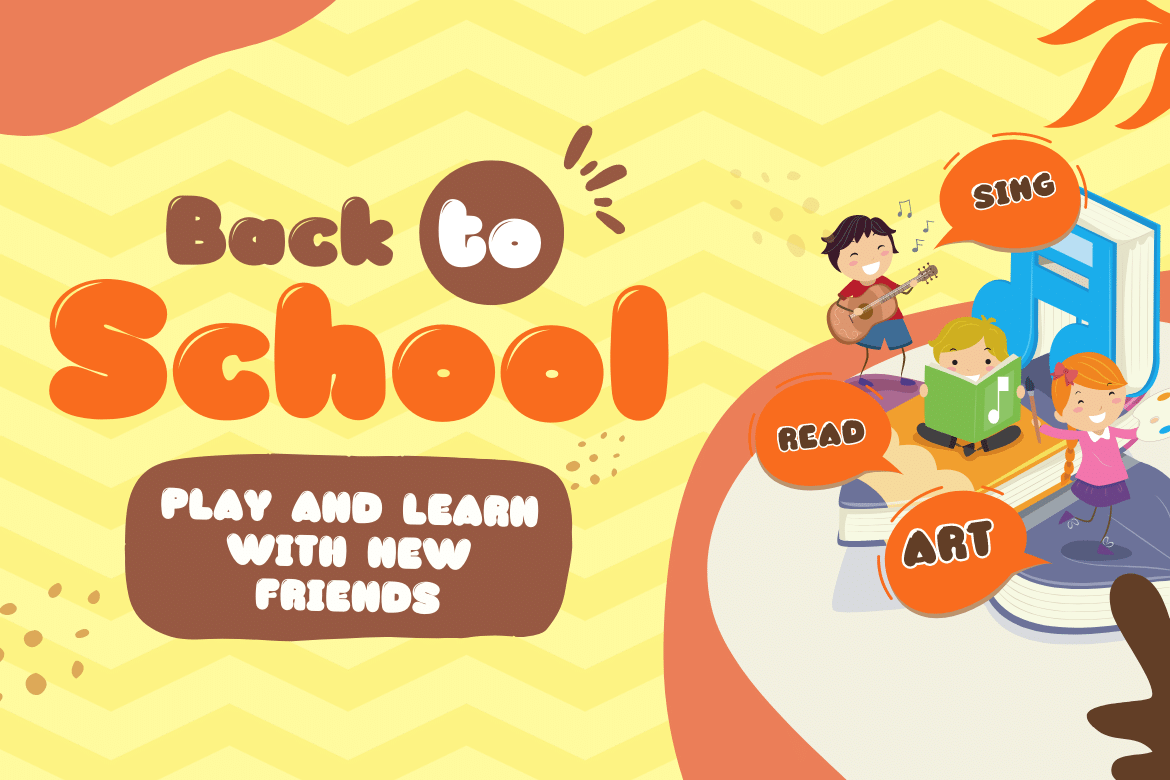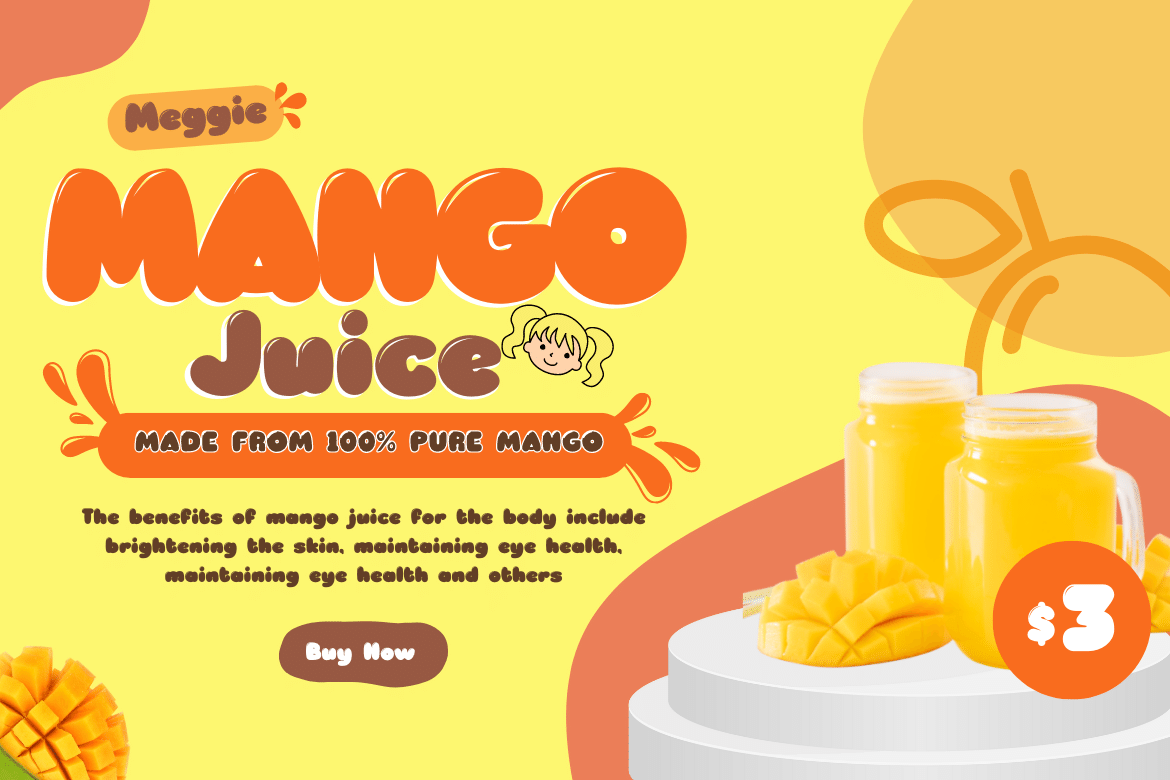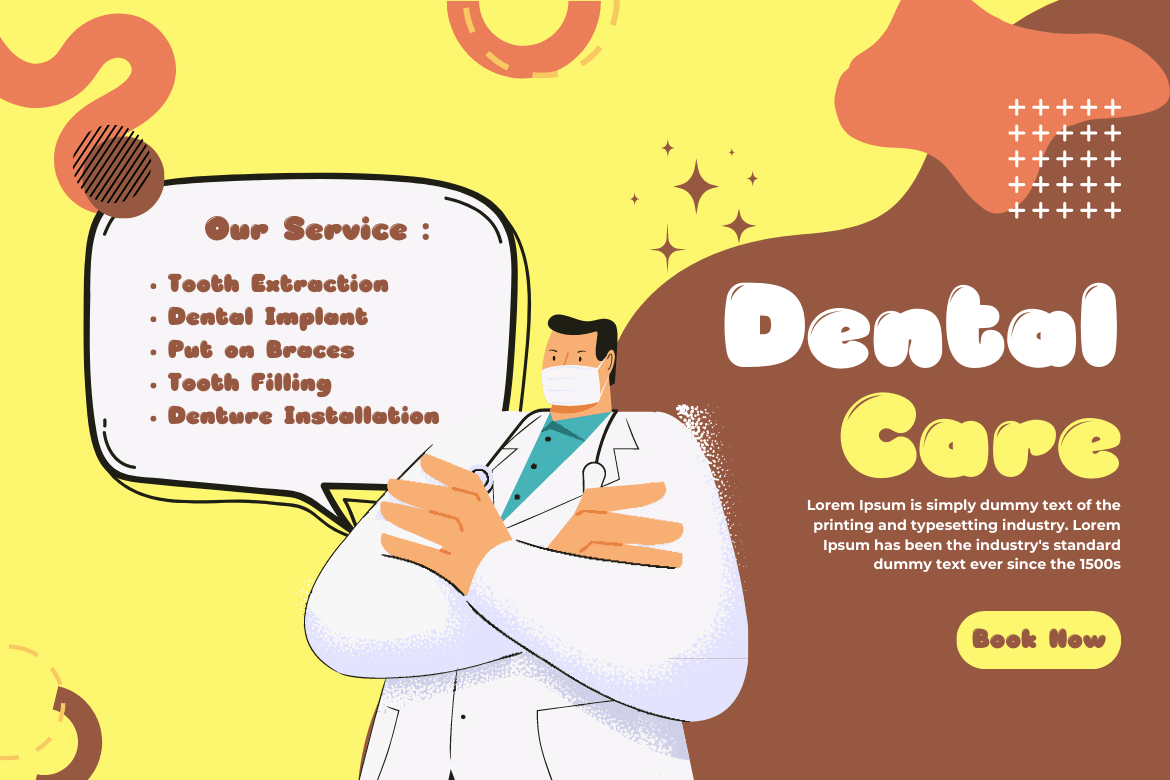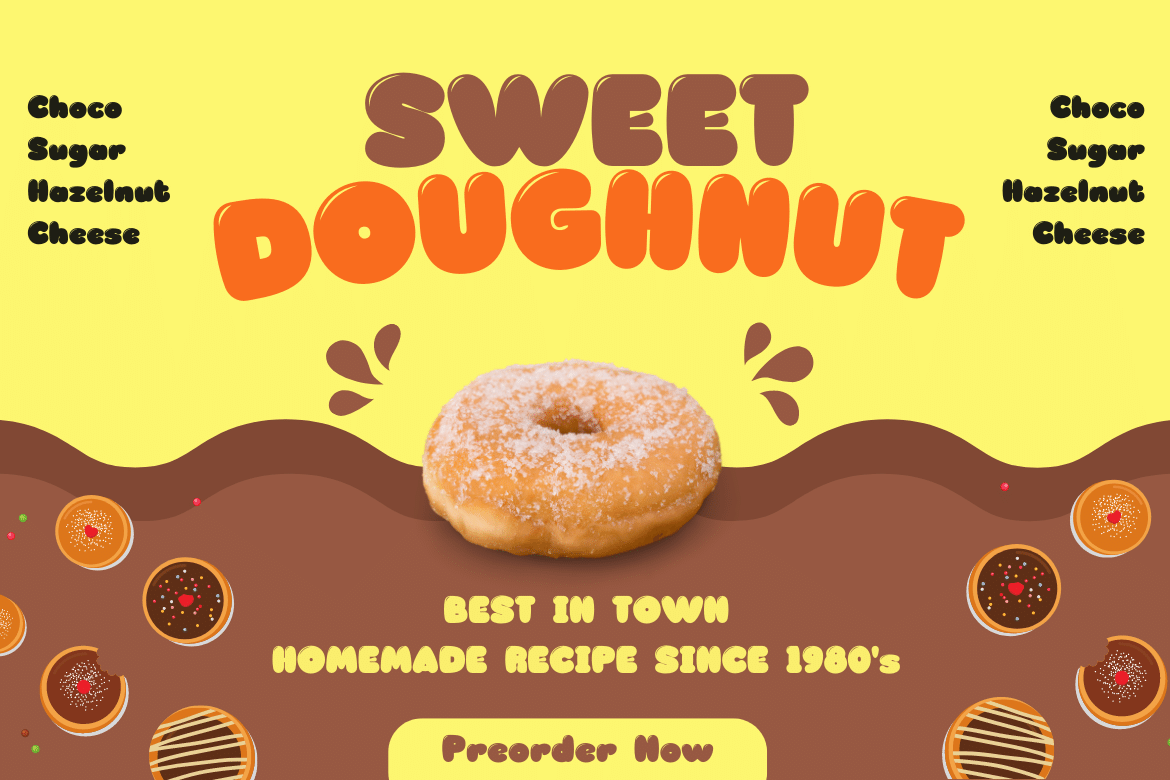
Tijuf Font
Tijuf Display Font
This font designed with a unique and creative shape gives you the ease of use in a variety of your project needs. designed in a fun, cheerful, and unique style. When used in conjunction with other fonts in our collection, it gives you the ability to create unique, captivating, and highly impressive visual displays.